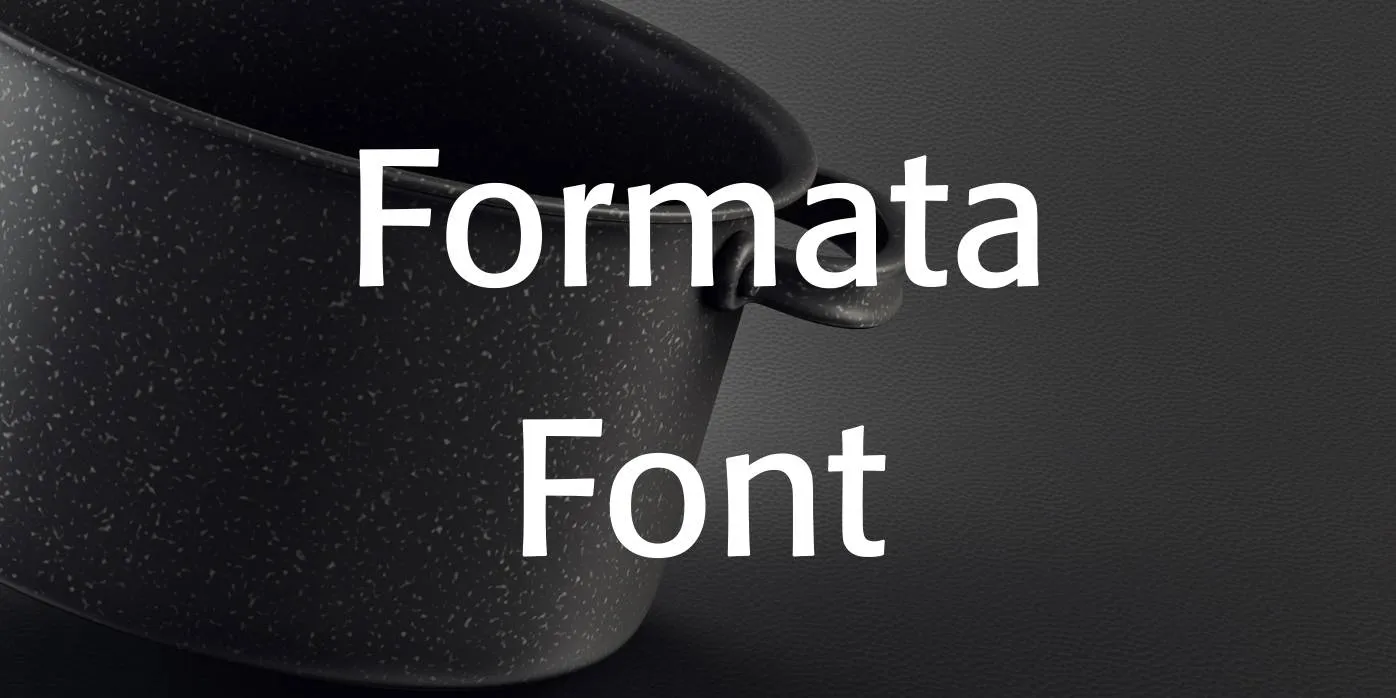
Formata Font
Formata font is a sans-serif typeface created by Brazilian type designer Mr. Bernd Mollenstadt in 2013. This amazing typeface was inspired by the work of German type designers such as Helmut Schmid and Rudolf Koch. It is available in three weights light, regular, and bold, and includes both Latin and Cyrillic character sets.
This awesome typeface includes 25 famous styles that help it with different features. This tremendous typeface is used for a lot of different programs like Canva, Adobe, CorelDRAW, and others. FF Marks Font is similar to this typeface. This cute Font is perfect for any situation where a modern, clean sans-serif typeface is needed such as; corporate branding, advertising, web design, and print design.
This amazing typeface has the ability to work well in both small and large sizes so it can be used for both headlines and body text.